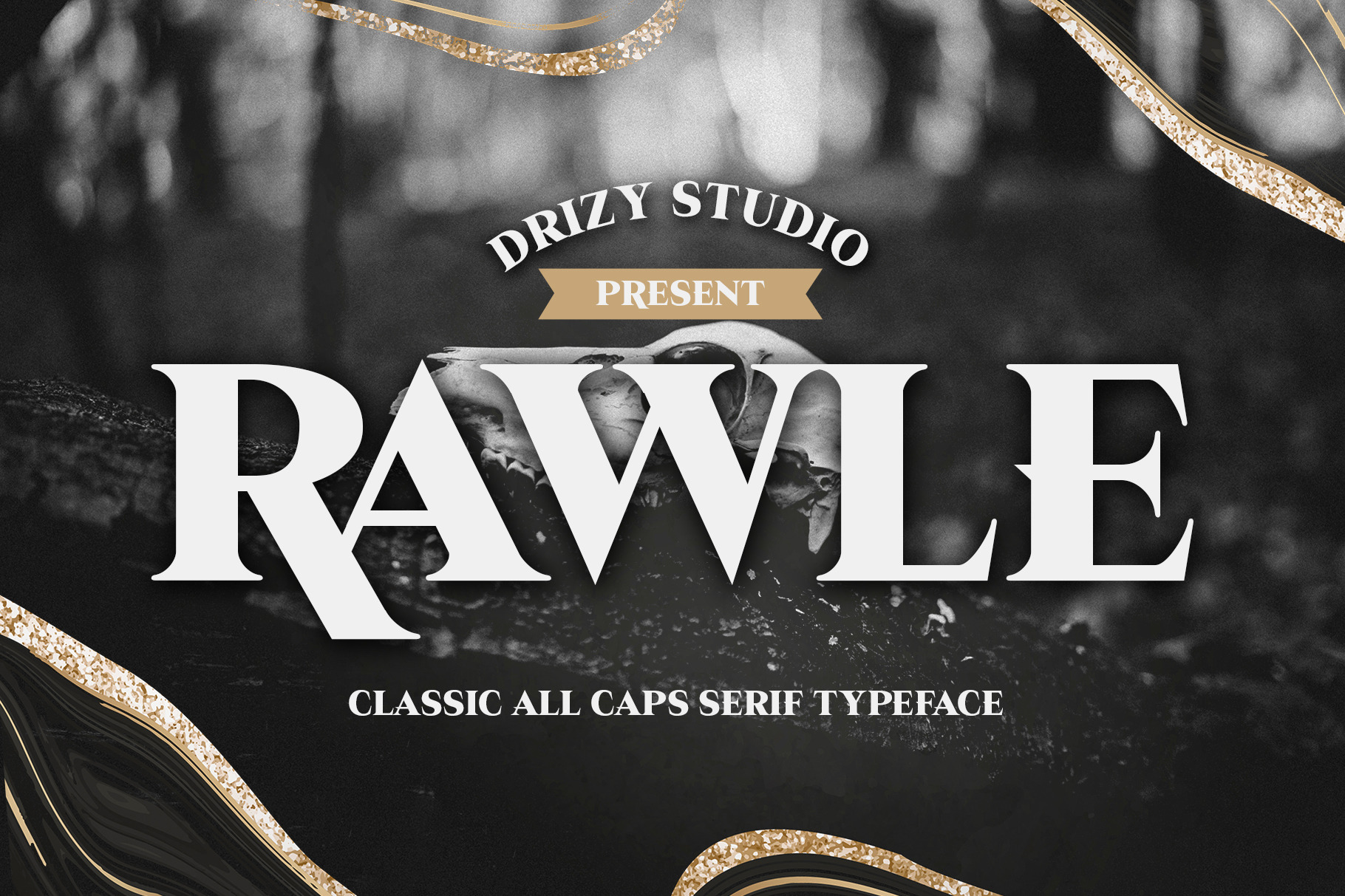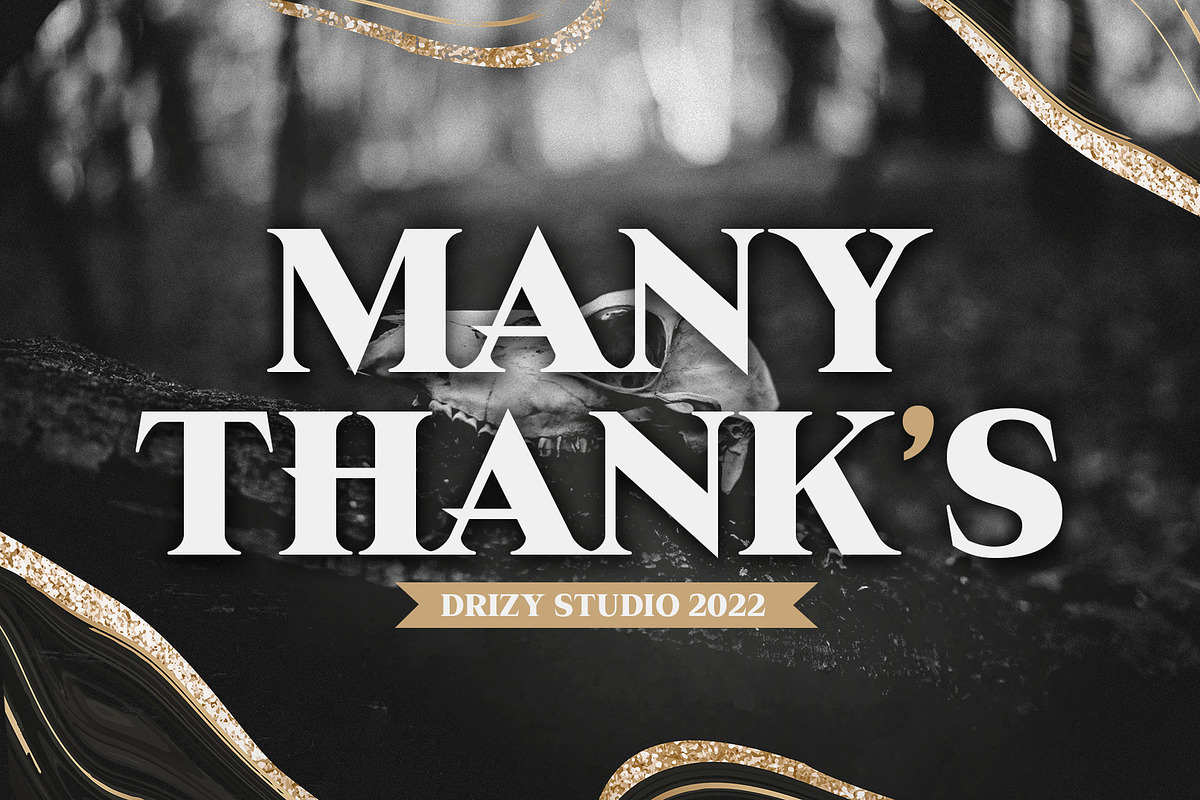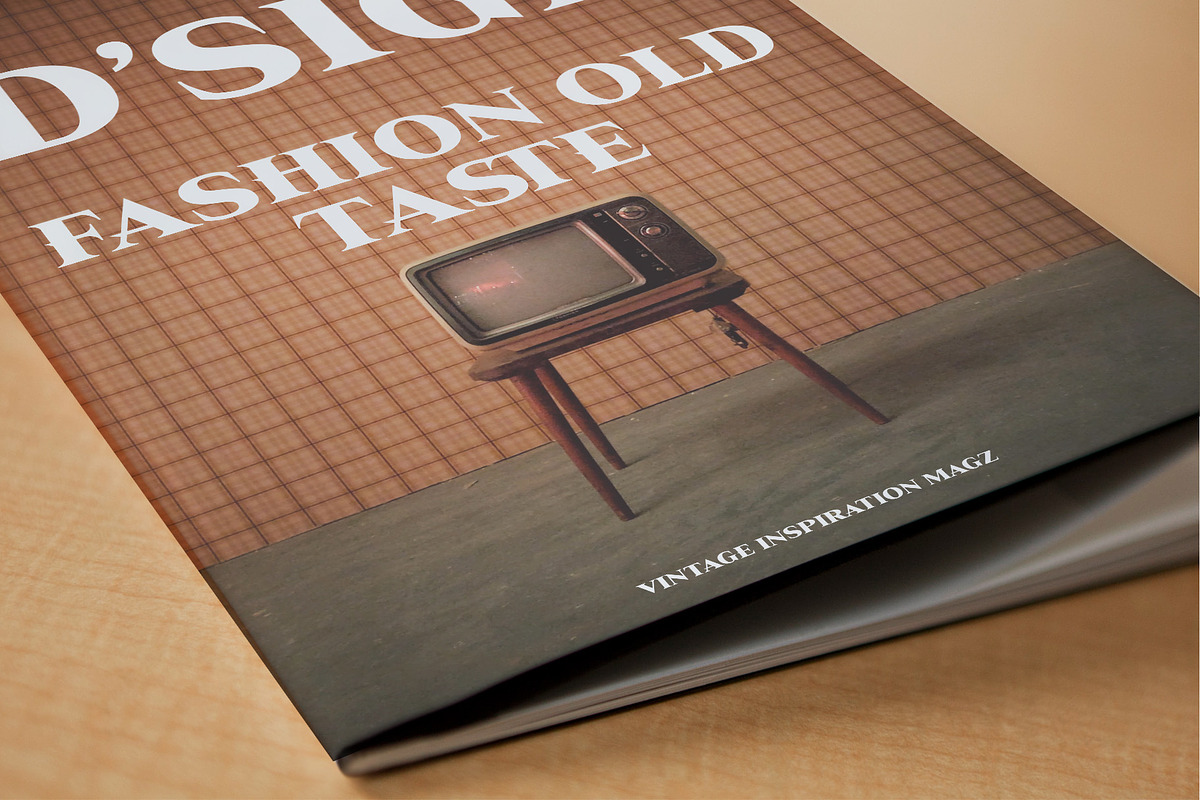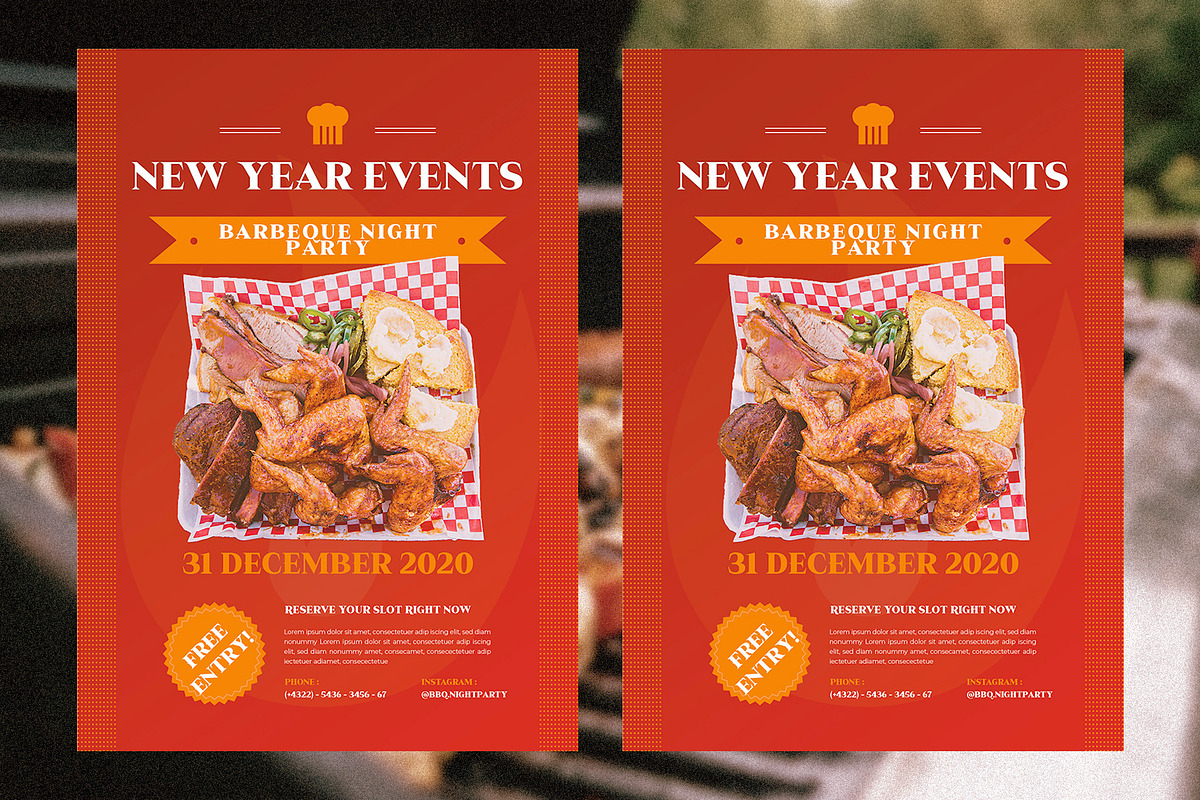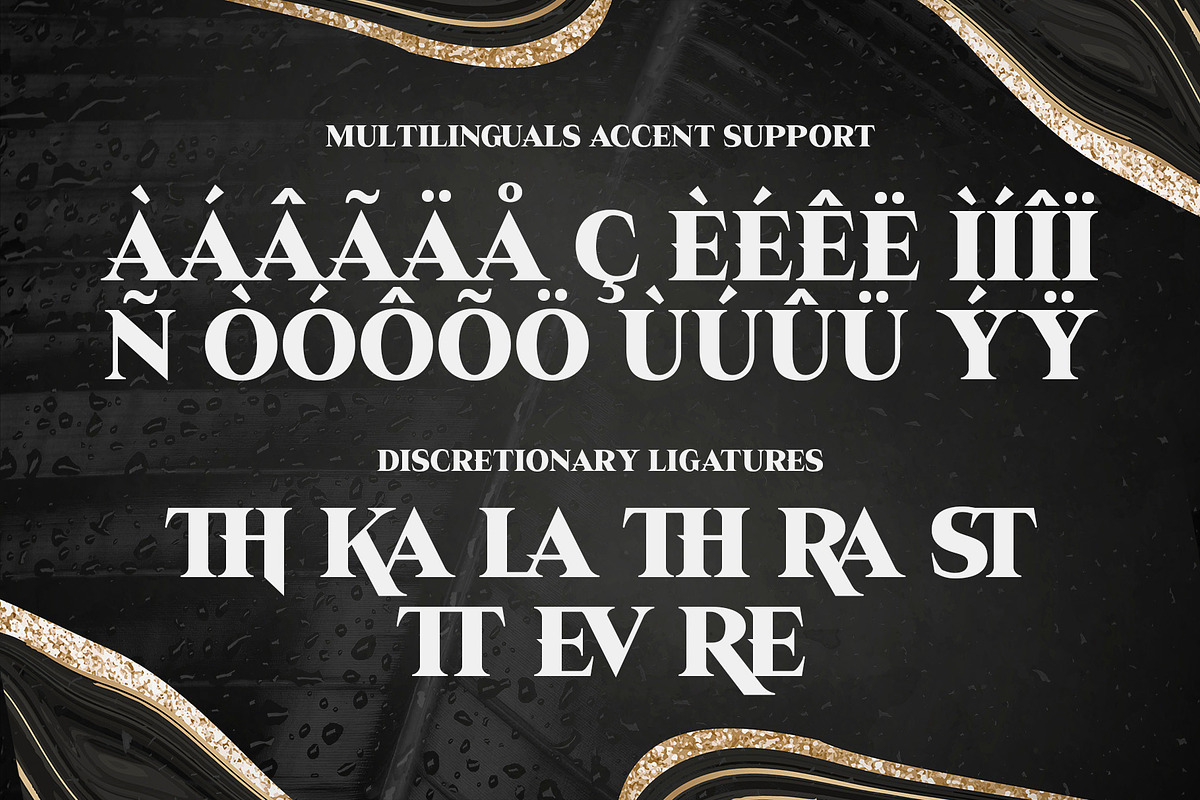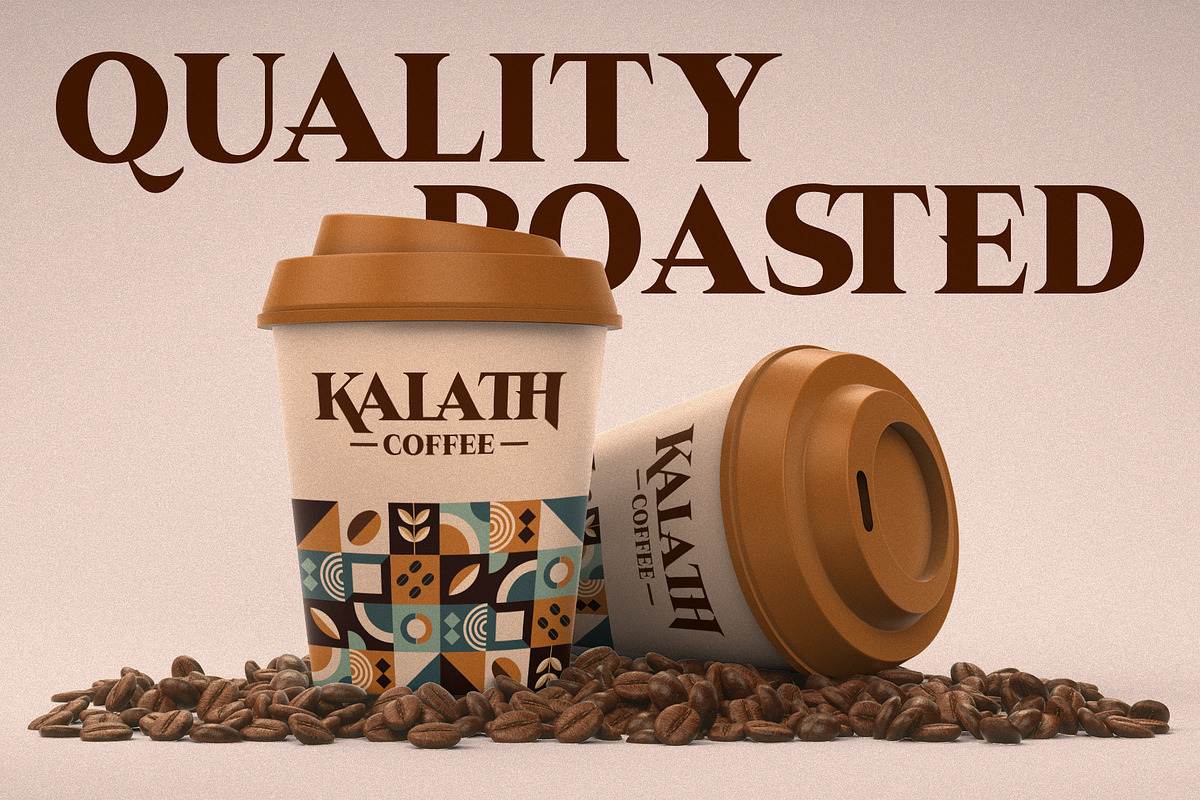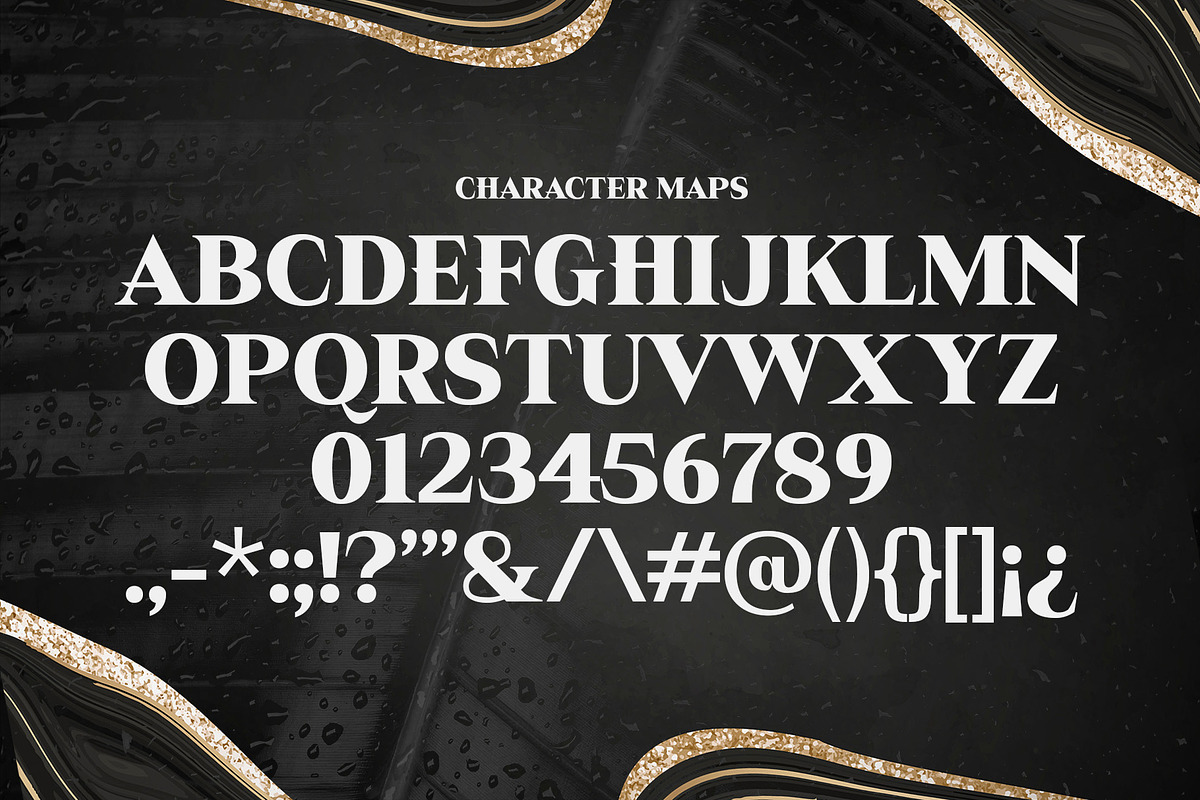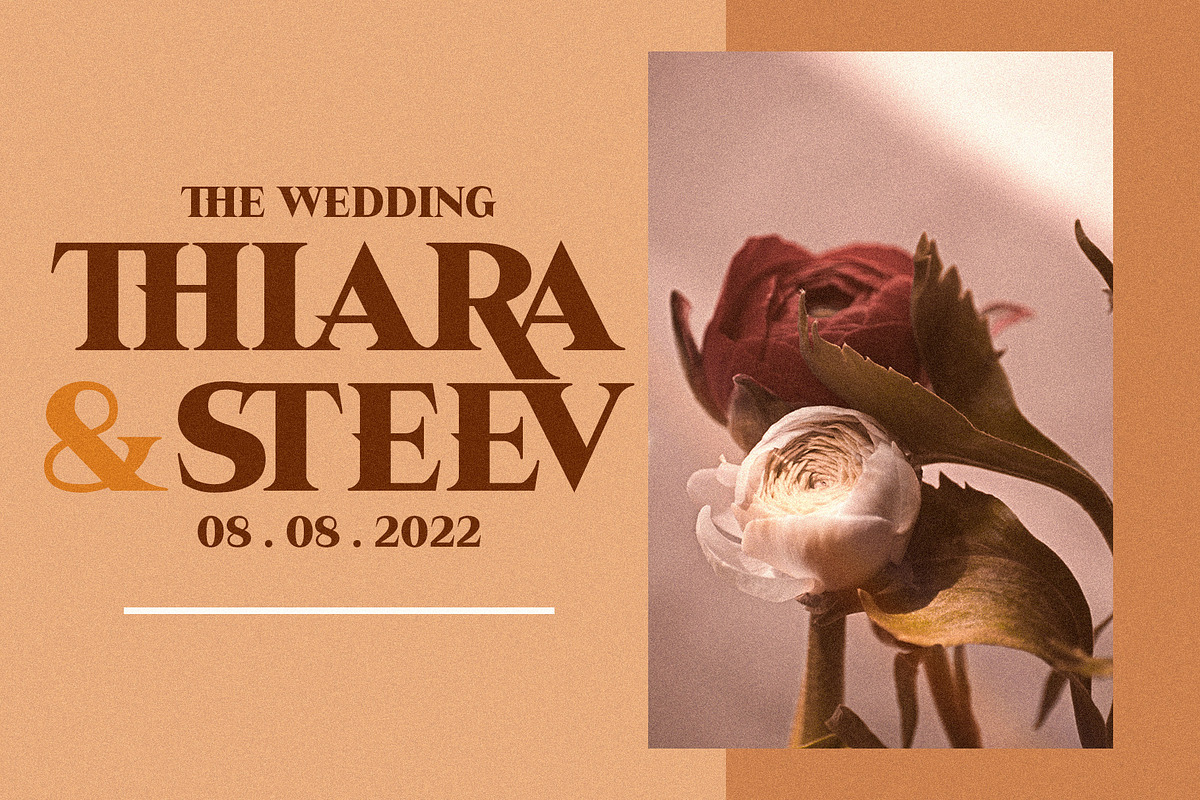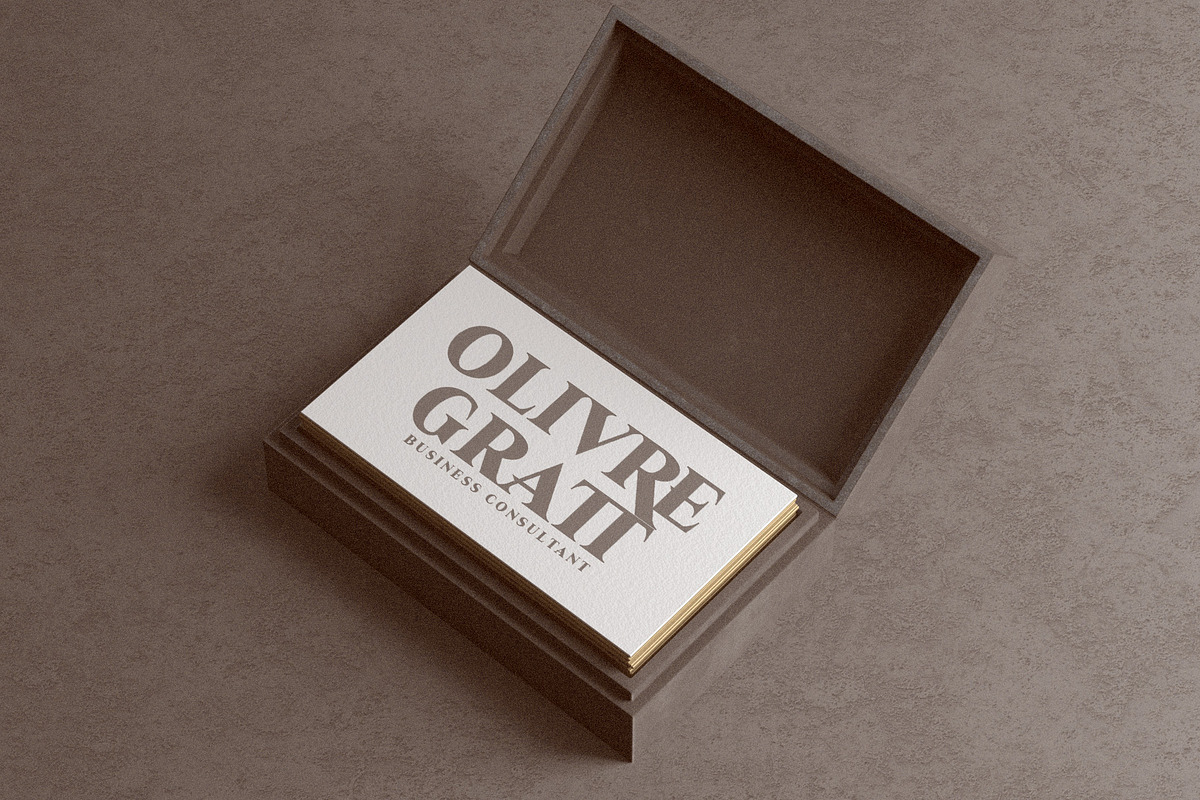
Rawle - Serif Classic Font
Rawle is a Serif Classic Font Font from Drizy Studio. Offering all the styles you need for your projects.
Rawle features: Character Set Punctuation & Numbers Multilinguals Ligatures